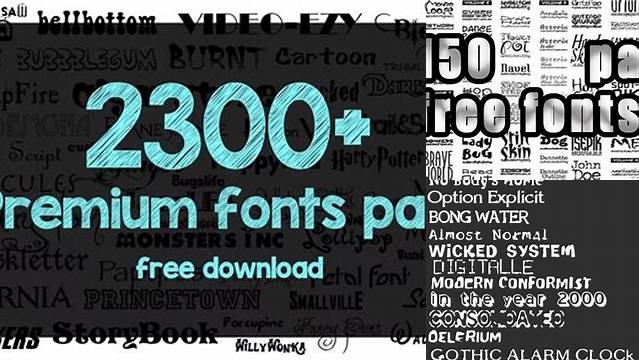
Font Package Free Download: Find Your Perfect Fonts
Are you guys looking for a font package free download to spice up your design projects? Well, you've come to the right place! Finding the perfect font can be a game-changer for any creative endeavor, whether it's crafting a stunning website, designing eye-catching marketing materials, or simply adding a personal touch to your documents. But with the vast ocean of fonts available online, navigating the world of typography can feel overwhelming. That's why we've put together this comprehensive guide to help you discover amazing font packages without breaking the bank.
Why You Need a Diverse Font Library
Let's dive deep into why having a diverse font library is crucial for any designer or content creator. In the realm of design, fonts are more than just letters; they are powerful tools that convey emotion, personality, and brand identity. The right font can elevate your design from mundane to magnificent, while the wrong choice can send the wrong message and detract from your overall aesthetic. Think of fonts as the voice of your design – they speak volumes even before the words themselves are read.
Consider the impact of different fonts on your audience. A sleek, sans-serif font might exude modernity and professionalism, making it perfect for a tech company's website. On the other hand, a classic serif font can evoke a sense of tradition and elegance, making it ideal for a law firm's branding. A playful script font might be just the ticket for a children's book, while a bold, display font can grab attention in a poster design. Each font carries its own unique character and contributes to the overall tone and feel of your project.
Having a variety of fonts at your disposal allows you to tailor your designs to specific audiences and purposes. This versatility is especially important in today's competitive market, where standing out from the crowd is essential. With a diverse font library, you can experiment with different styles, create visual hierarchy, and ensure your message is communicated effectively. You'll be able to craft designs that not only look good but also resonate with your target audience on a deeper level.
Moreover, a well-curated font collection can save you time and money in the long run. Instead of constantly searching for individual fonts for each project, you'll have a go-to resource at your fingertips. This not only streamlines your workflow but also reduces the risk of using fonts that clash or are inconsistent with your brand. Think of it as building your own personalized toolbox of typographical treasures, ready to be unleashed whenever inspiration strikes.
So, whether you're a seasoned designer or just starting your creative journey, investing in a diverse font library is an investment in your success. It's about empowering yourself with the tools you need to create compelling, visually appealing designs that leave a lasting impression.
Where to Find Font Package Free Downloads
Now, let's get to the exciting part: where can you actually find these amazing font package free downloads? The internet is brimming with resources, but it's important to navigate them carefully to ensure you're getting high-quality fonts and staying within the bounds of licensing agreements. No one wants a font that looks pixelated or, worse, gets you into legal trouble!
1. Google Fonts
First up, we have the undisputed champion of free fonts: Google Fonts. This is a treasure trove of over a thousand open-source font families, all completely free for personal and commercial use. The best part? They're incredibly easy to use – you can download them directly to your computer or even embed them into your website with just a few lines of code. Google Fonts offers a wide range of styles, from classic serifs and sans-serifs to playful display fonts and monospaced options. The intuitive interface lets you filter fonts by category, popularity, and even visual characteristics, making it a breeze to find the perfect match for your project. Plus, Google Fonts is constantly updated with new additions, so you'll always have fresh options to explore.
2. Font Squirrel
Next on our list is Font Squirrel, another fantastic resource for free fonts. What sets Font Squirrel apart is its commitment to quality and licensing. All the fonts on Font Squirrel are free for commercial use, meaning you can use them in your projects without worrying about copyright issues. They also have a handy Font Identifier tool that helps you identify fonts from images, which is incredibly useful when you stumble upon a font you love but don't know the name of. Font Squirrel also offers a Webfont Generator, which allows you to create web-friendly font files from your desktop fonts, ensuring your website typography looks its best across all browsers and devices.
3. DaFont
DaFont is a name that often pops up in conversations about free fonts, and for good reason. It's a massive archive with a vast collection of fonts in various styles, from script and handwritten to gothic and futuristic. While DaFont offers a plethora of options, it's crucial to pay attention to the licensing information for each font. Some fonts are free for personal use only, while others are available for commercial projects. Always double-check the license before using a font to avoid any potential legal headaches. DaFont's extensive library makes it a great place to find unique and quirky fonts that can add character to your designs.
4. Adobe Fonts (If you have an Adobe Creative Cloud Subscription)
If you're an Adobe Creative Cloud subscriber, you're in luck! Adobe Fonts (formerly Typekit) is a vast library of high-quality fonts included with your subscription. This is a goldmine of professionally designed fonts that you can seamlessly integrate into your Adobe applications, such as Photoshop, Illustrator, and InDesign. Adobe Fonts offers a diverse range of styles, from classic typefaces to cutting-edge designs, ensuring you have the perfect font for any project. The integration with Creative Cloud makes it incredibly convenient to browse, activate, and use fonts directly within your design workflow. Plus, Adobe Fonts takes care of the licensing, so you can use the fonts with confidence in your commercial projects.